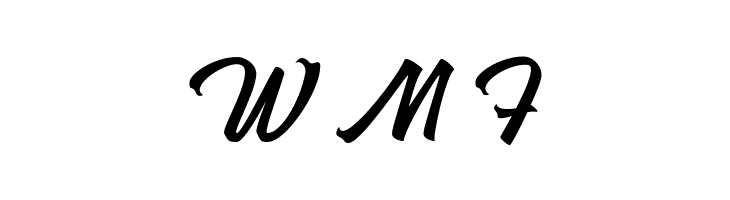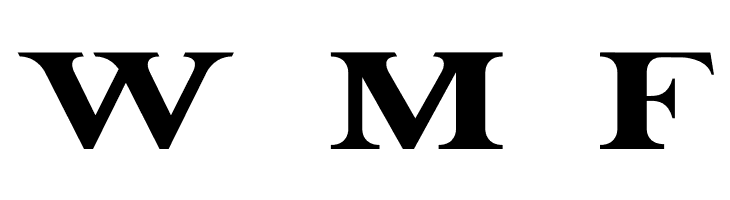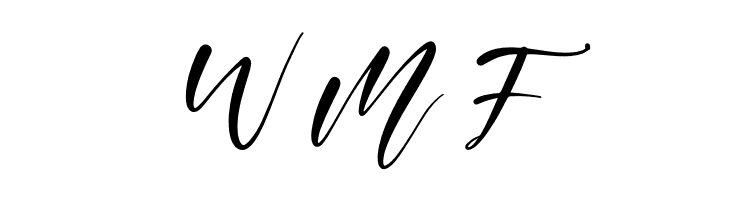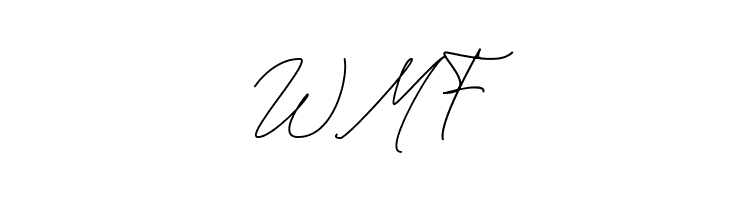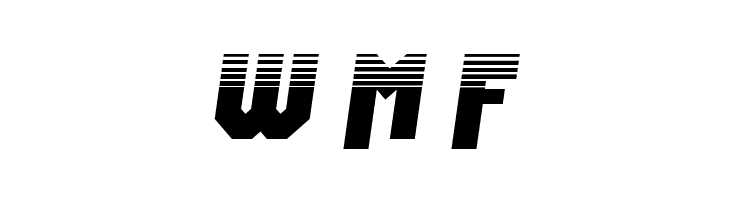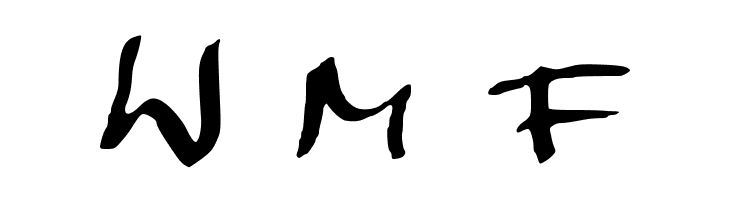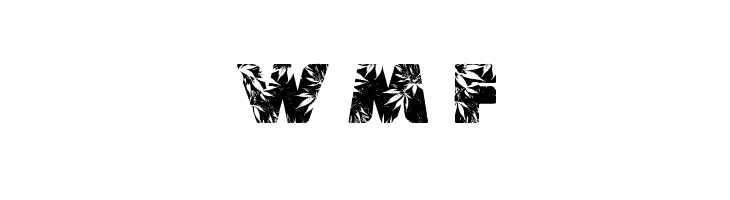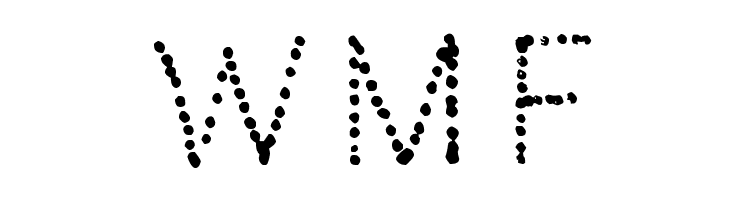
• Mantilda
A graceful and flowing script font with elegant cursive strokes.
• Mantra Rimba
A bold, playful font with rounded edges and a whimsical style.
• Many a Little Makes a Mickle Demo
A playful, dotted font with a modern and informal style.
• Many Years Higher
A bold, futuristic font with angular lines and a striped pattern.
• Maora
A playful, whimsical handwritten font with tall, narrow letters and a casual style.
• Marcelo Personal Use
A bold serif font with thick strokes and sharp serifs, offering a modern twist on classic design.
• Marijuana
A bold, decorative font with intricate marijuana leaf patterns.
• Marillia Vion Script
A graceful and flowing script font with elegant, continuous strokes.
• Marioline Barnard
A dynamic and elegant script font with flowing, cursive letterforms.
• MarkerScript